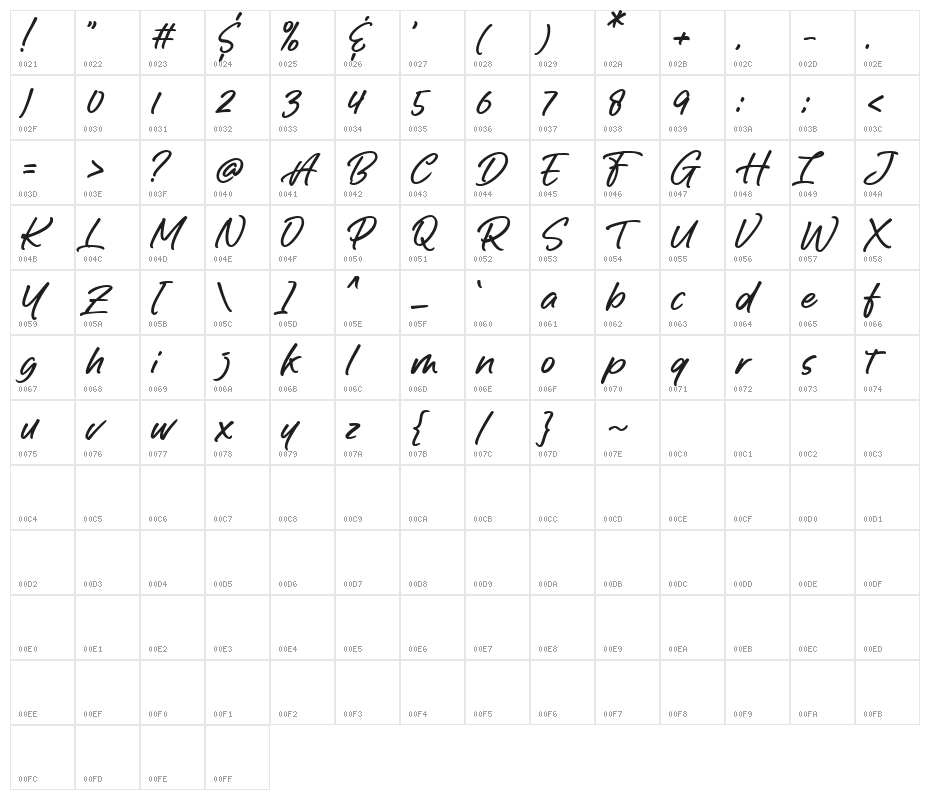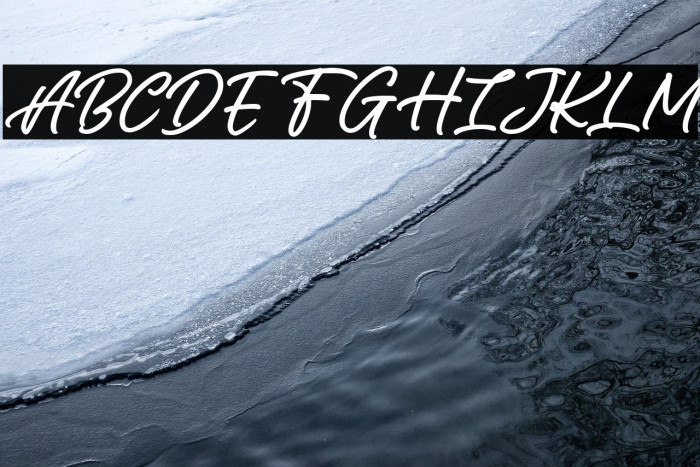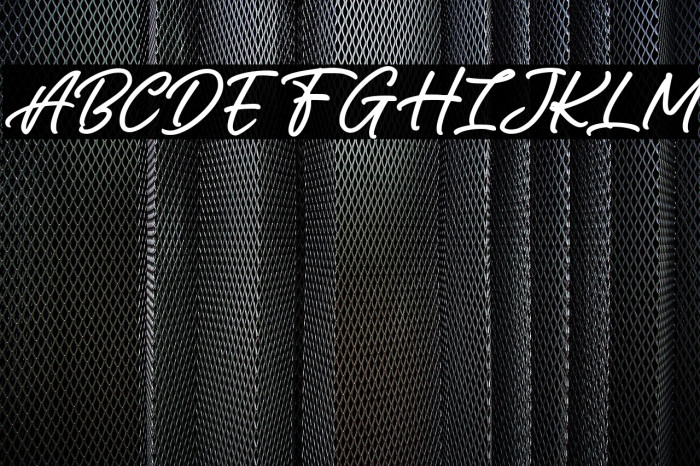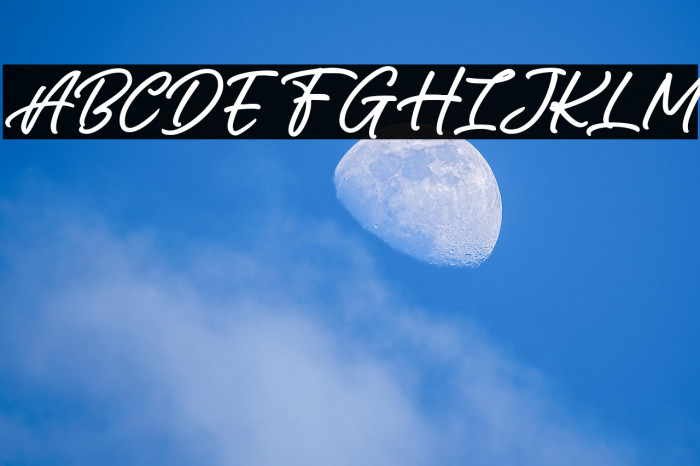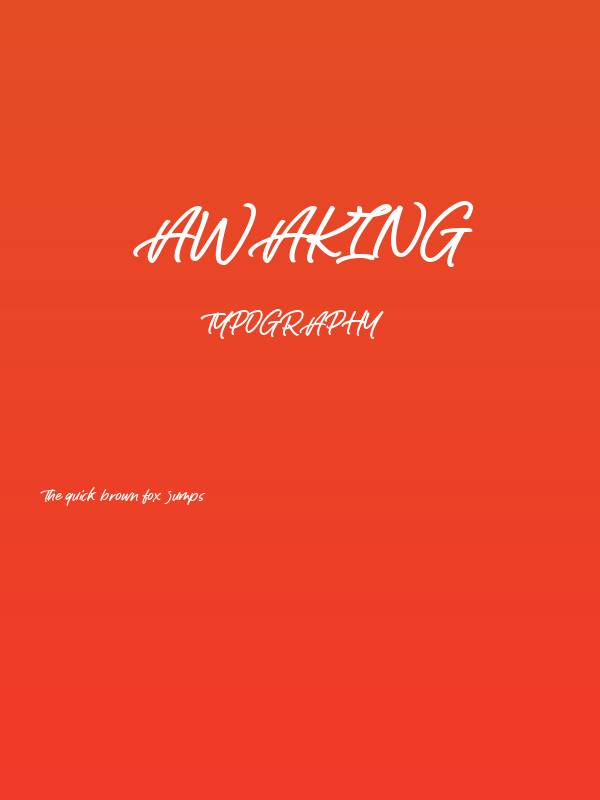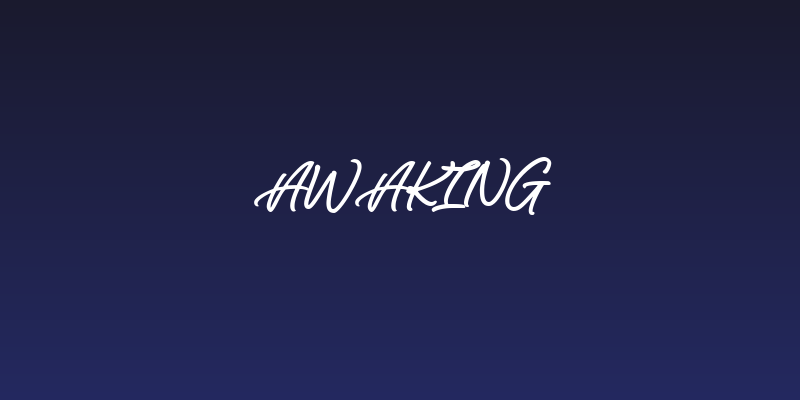
Awaking Font
Awaking Description
This font exudes a dynamic and energetic style, characterized by its fluid and cursive script. The letters are interconnected, creating a seamless flow that mimics natural handwriting. The strokes are bold and confident, with a slight slant that adds to its casual yet sophisticated appearance. The uppercase and lowercase letters maintain a consistent style, while the numerals and special characters integrate smoothly into the overall design. This font is perfect for projects that require a personal touch, such as invitations, greeting cards, or branding materials that aim to convey creativity and elegance.
| Use Case | Logos, Headlines, Invitations |
| Proposed Projects | Ideal for invitations, greeting cards, branding materials, and any project needing a personal, elegant touch. |